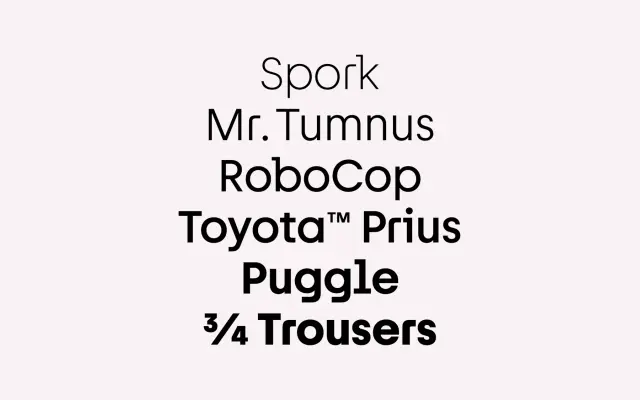
F37 Hybrid
A display family that quietly mixes slab and sans details inside the same letters, giving headlines an off-register texture.
A display family by Rick Banks that blends slab serif and sans serif features inside the same skeletons. Twelve styles run from ExtraLight to Bold with matching italics, and a Cyrillic companion extends the system. The mixed cues read as subtly off, which makes the family well suited to identity, editorial covers and posters where you want a clean look with one feature that makes a viewer pause.
F37 call Hybrid an unusual display font that mixes slab serif and sans serif elements within the same letterforms. The drawing carries small slab cues on some terminals while remaining largely sans, giving a distinctive textural read.